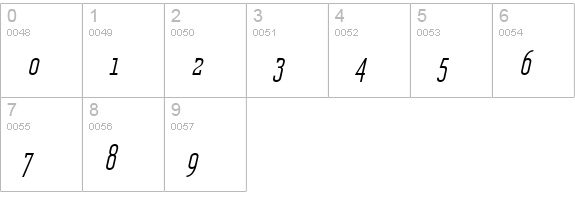
Unknown Caller BTN SC BoldOblique font is a stylish and eye-catching typeface that is perfect for adding a touch of sophistication and elegance to your designs. With its unique combination of boldness and slant, this font is sure to grab attention and make a lasting impression. This font is ideal for a wide range of design projects, from logos and branding materials to headlines and advertising campaigns. Its bold and oblique style adds a modern and dynamic feel, while still maintaining a sense of professionalism and class. One of the best things about Unknown Caller BTN SC BoldOblique font is that it is available for free download at FontsMarket.com. This means that you can easily access and use this font in your projects without any cost. Whether you are a professional designer or a hobbyist, this font is a valuable addition to your collection. The versatility of Unknown Caller BTN SC BoldOblique font allows it to be used in various contexts and themes. It works well in both print and digital media, and its legibility ensures that your message will be clearly conveyed to your audience. Whether you are designing a magazine layout, creating a website, or crafting a social media post, this font will bring a touch of elegance and style to your work. So why wait? Download Unknown Caller BTN SC BoldOblique font for free at FontsMarket.com and start adding a touch of sophistication to your designs today.